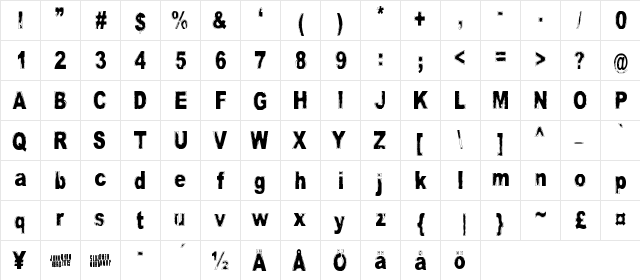
Velvet Queen Regular
Design Context for Velvet Queen Typeface
Velvet Queen takes a measured approach to typography — its balanced proportions and neutral character make it a reliable workhorse for both digital and print work.